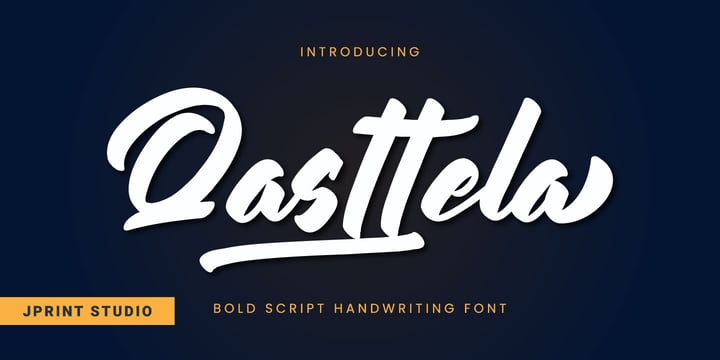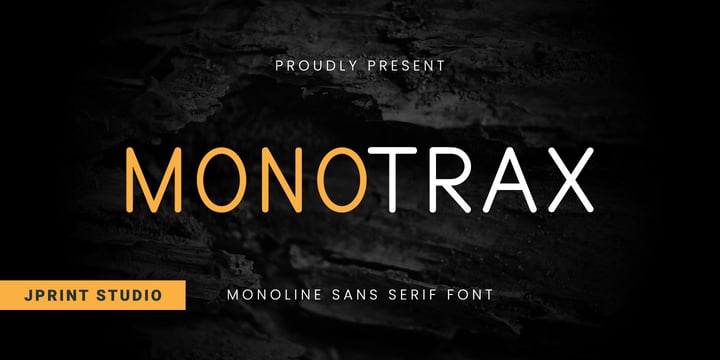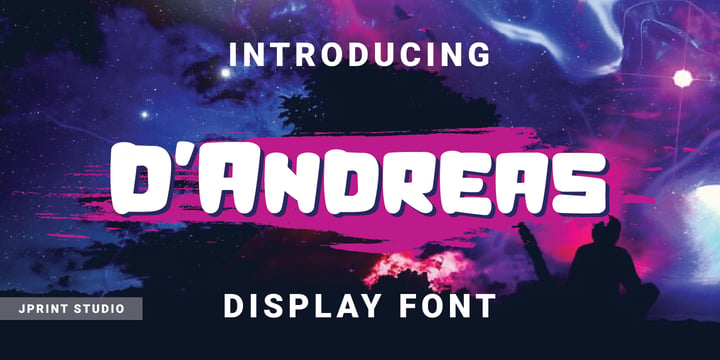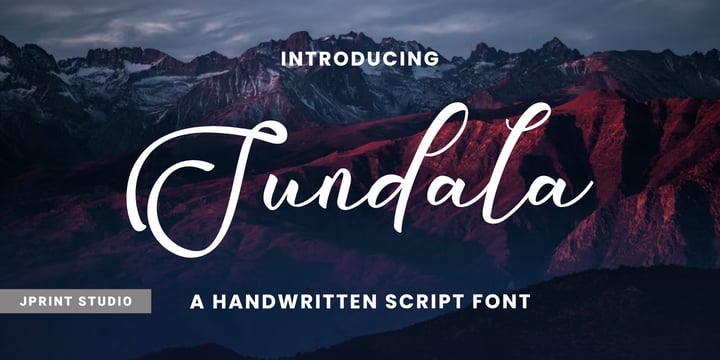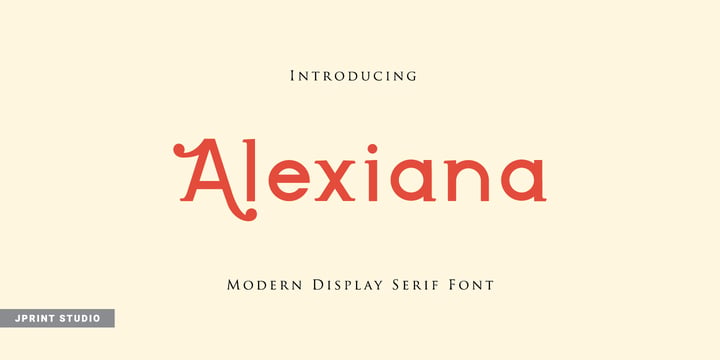
Ultimate Handwritten Font Collection 2026
Discover the charm of authentic lettering with the Ultimate Handwritten Font Collection 2026✍️ A curated collection of stylish, natural, and expressive handwritten fonts designed to bring personality and warmth into your designs. Each font pairs effortlessly, making it easy to create stunning visuals without the hassle. ✨ Perfect for: Logos • Branding • Social Media • Packaging • Invitations • Quotes Create beautiful, personal, and professional designs — all in one bundle.